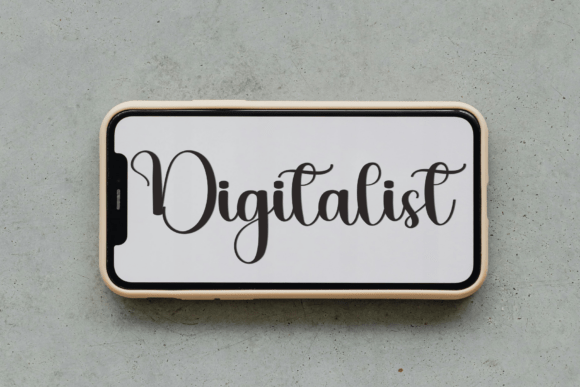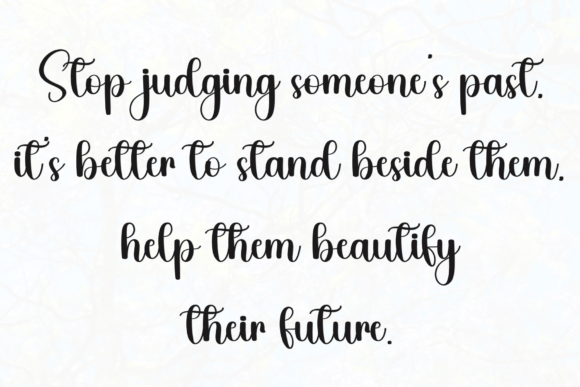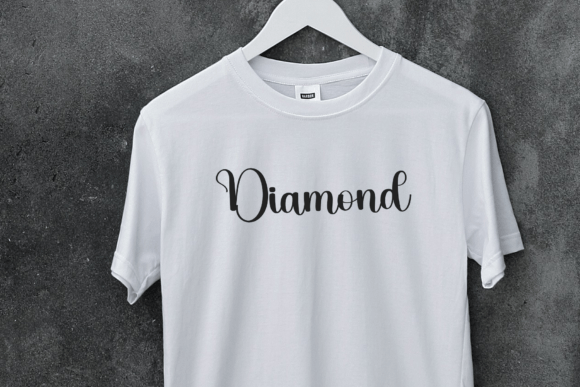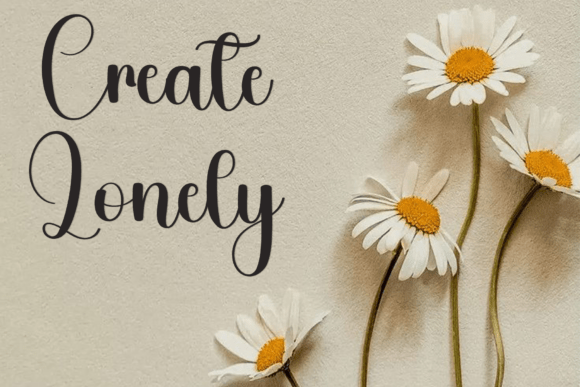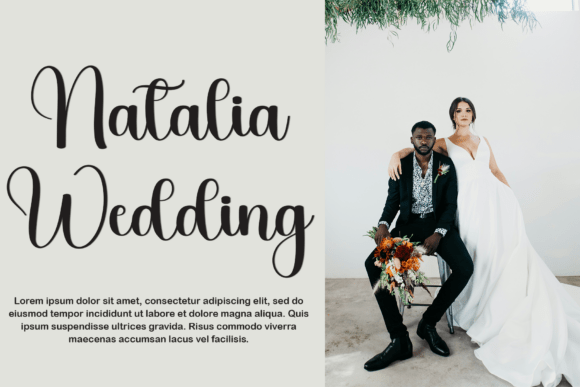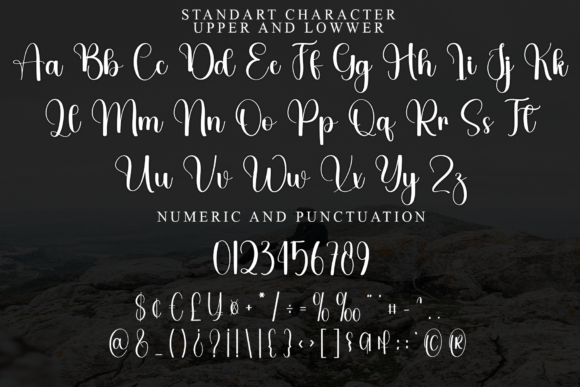
Introduction to Daily Wedding Font
Daily Wedding is a romantic handwritten script font with refined curves and smooth strokes.
Perfect for wedding invitations, elegant branding, and heartfelt quotes, this font adds grace and charm to every design .